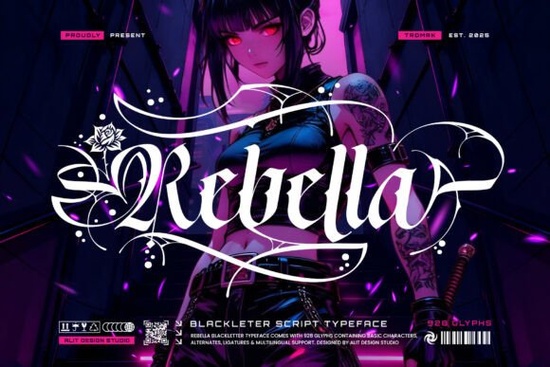
If you're looking for a blackletter font that blends gothic roots with futuristic edge, Rebella Font might be exactly what your next project needs. Designed by Alit Design Studio, it’s not just another ornate script it’s built for creators who want boldness with depth, whether you’re designing streetwear graphics, album covers, or gaming overlays.
What makes Rebella stand out in the crowded world of blackletter fonts is how it balances tradition and rebellion. It keeps the sharp angles and dense structure of classic gothic letterforms but infuses them with fluid swashes, dripping alternates, and even embedded rose motifs. These details give your typography a sense of motion and attitude like ink bleeding on concrete or neon light reflecting in rain-slicked alleys.
How many styles does Rebella actually include?
More than most fonts twice its price. Rebella comes packed with over 928 glyphs, which means you’re not stuck with one rigid look. Through OpenType features, you can access:
- Multiple alternate characters for nearly every letter
- Liquid-like swashes that extend naturally from terminals
- Dripping or splatter-style variants for dramatic effect
- Intricate rose and thorn embellishments built right into certain glyphs
- Standard and stylistic ligatures for smoother, more organic wordforms
This level of variation means you can design a clean, sharp headline for a techwear brand one day and switch to a heavily ornamented version for a synthwave poster the next all without leaving the same font file.
Who is this font really for?
Rebella shines in projects where personality matters more than neutrality. Think:
- Print-on-demand sellers creating statement tees or hoodies with goth, punk, or cyberpunk themes
- Indie musicians designing album art for genres like darkwave, trap, or industrial
- Small branding studios working with edgy startups in gaming, fashion, or nightlife
- Digital artists building stream overlays, YouTube thumbnails, or social banners that need instant visual impact
It’s less suited for body text or minimalist corporate identities but that’s not what it’s meant for. Rebella is a display font with intention, made to command attention in headlines, logos, and featured graphics.
How does it compare to other blackletter fonts?
If you’ve browsed Creative Fabrica’s blackletter collection, you might already know fonts like Old English Texas, which leans into traditional newspaper or tattoo-style lettering, or Blacklottery, which offers a more modern, geometric take on gothic forms. Rebella sits somewhere between them keeping the historical weight of blackletter while pushing into expressive, almost illustrative territory.
Unlike simpler blackletter fonts that offer only uppercase letters and basic punctuation, Rebella includes full multilingual support (covering Western European languages) and contextual alternates that respond to neighboring characters. This makes it far more flexible for international clients or nuanced typographic compositions.
Tips for using Rebella effectively
Because of its density and ornamentation, less is often more. Try these practical approaches:
- Use generous spacing. Tight kerning can make swashes collide; open it up for clarity.
- Pair it with a neutral sans-serif. A clean typeface like Montserrat or Helvetica balances Rebella’s intensity.
- Limit embellished glyphs to key words. You don’t need every letter dripping just the first or last character for emphasis.
- Test at different sizes. Some alternates work best large (for posters), while cleaner variants hold up better on small apparel prints.
And remember: Rebella includes stylistic sets you can toggle in design software like Adobe Illustrator, Photoshop, or Affinity Designer. Explore those panels you’ll find hidden gems that aren’t visible in the default view.
Whether you’re crafting a logo for a new streetwear line or designing a poster for an underground music event, Rebella gives you the tools to merge heritage with rebellion. It’s not just decorative it’s narrative. Every glyph tells a story of contrast: old vs. new, elegance vs. grit, control vs. chaos.